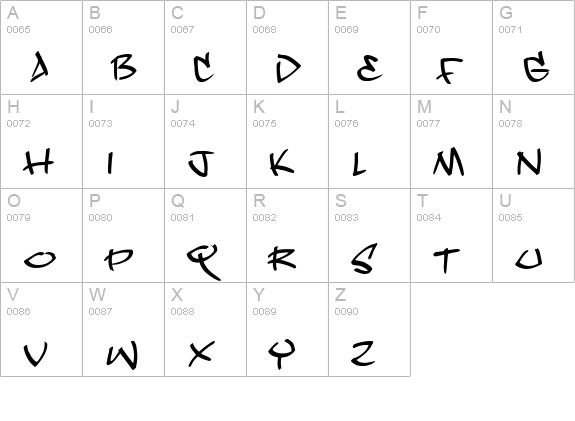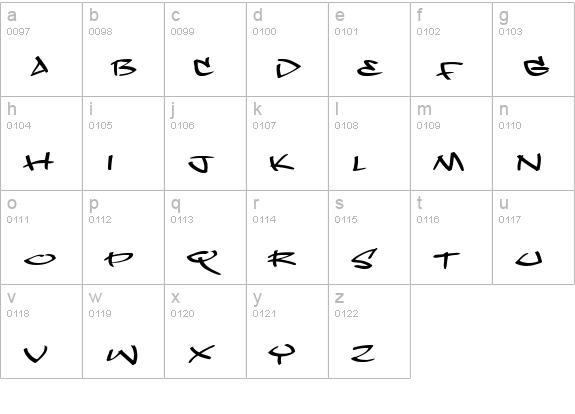
Dope Jam Font Details
Introducing Dope Jam font, a stylish and modern typeface perfect for adding a touch of edginess to your designs. With its bold and eye-catching letters, Dope Jam is sure to make a statement in any project. This versatile font is ideal for logos, posters, headlines, and more. What's even better is that Dope Jam font is completely free to download at FontsMarket.com. Yes, you read that right - you can get your hands on this amazing font at no cost at all. Don't miss out on the opportunity to enhance your designs with the unique flair of Dope Jam font. Download it now and let your creativity shine!